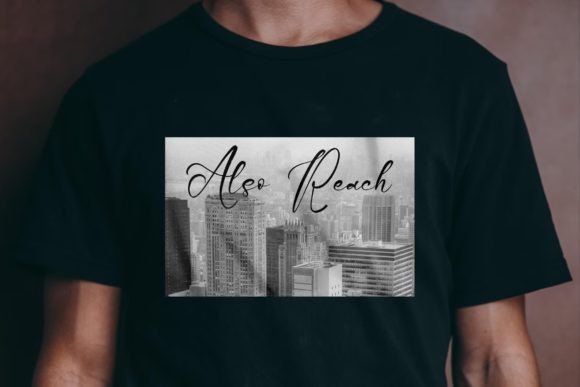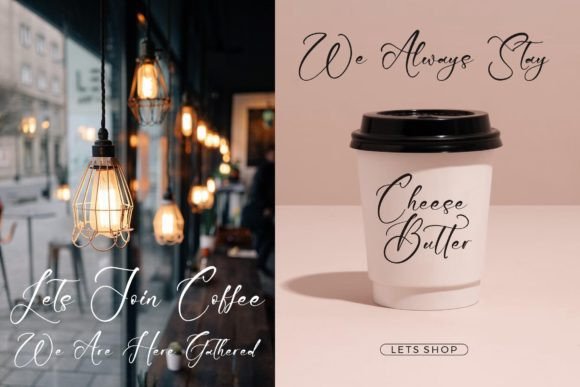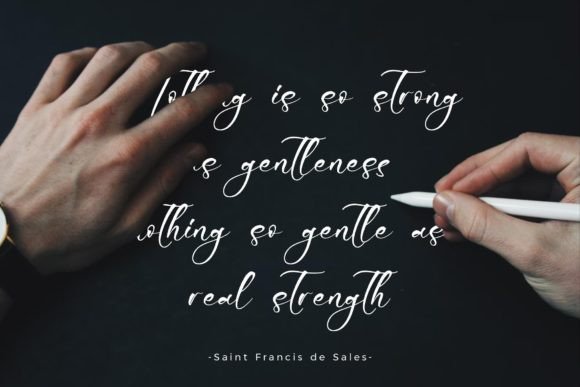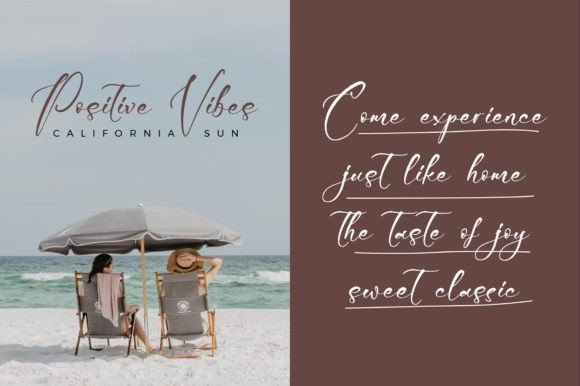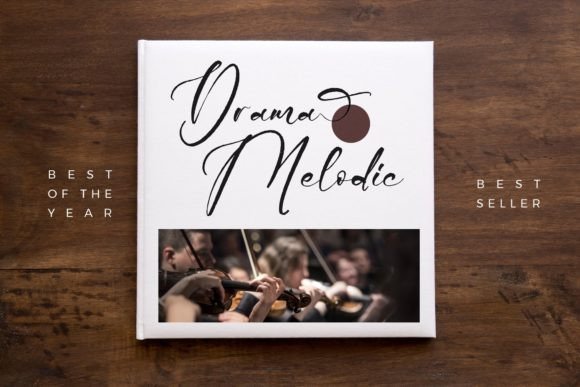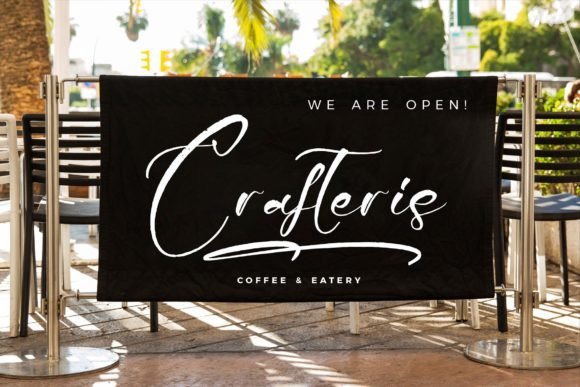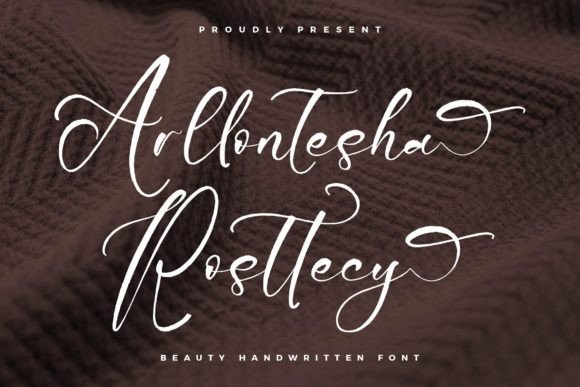
Introducing Arllontesha Rosttecy: The Beauty Handwritten Font for Creative Projects
Are you a designer or crafter looking for a beautiful and elegant handwritten font to elevate your creative projects? Look no further than Arllontesha Rosttecy, a stunning script font from Glorytype Studio. This gorgeous font is perfect for a wide range of projects, from logos and branding to homeware designs, product packaging, and more.
What Makes Arllontesha Rosttecy Special?
Arllontesha Rosttecy is a carefully crafted handwritten font that exudes elegance and sophistication. Its beautiful script style is perfect for adding a touch of luxury to any project. The font is highly versatile, making it suitable for a wide range of applications, including:
- Logos and branding projects
- Homeware designs
- Product packaging
- Mugs
- Quotes and posters
- Shopping bags
- T-shirts
- Book covers
- Name cards
- Invitation cards
- Greeting cards
- Labels
- Photography and watermark
- Special events
Why Choose Arllontesha Rosttecy?
There are many reasons why Arllontesha Rosttecy stands out from other fonts. Here are just a few:
- Unique and elegant script style: Arllontesha Rosttecy has a distinctive and beautiful script style that will add a touch of sophistication to any project.
- Highly versatile: This font can be used for a wide range of projects, from logos and branding to homeware designs and product packaging.
- Easy to read: Despite its elegant script style, Arllontesha Rosttecy is highly legible, making it perfect for use in quotes, posters, and other text-based projects.
- Perfect for digital and print projects: Whether you’re working on a digital project or a print project, Arllontesha Rosttecy will look great.
- Experiment with different sizes and colors: Arllontesha Rosttecy looks great in a variety of sizes and colors. Don’t be afraid to experiment to find the perfect look for your project.
- Pair it with other fonts: Arllontesha Rosttecy pairs well with other fonts, such as sans-serif fonts like Arial or Helvetica. Try pairing it with a bold font for a striking contrast.
- Use it for headlines and titles: Arllontesha Rosttecy is perfect for use in headlines and titles, where its elegant script style can really shine.
Arllontesha Rosttecy is a beautiful and elegant handwritten font that is perfect for designers and crafters looking to add a touch of luxury to their creative projects. With its highly versatile script style and ease of use, it’s an excellent choice for a wide range of applications. Whether you’re working on a logo, branding project, homeware design, or product packaging, Arllontesha Rosttecy is sure to impress.